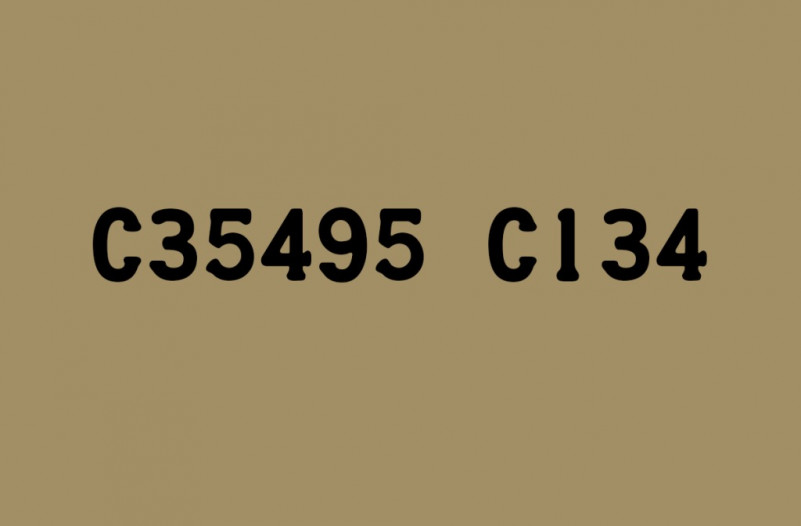
Credit Card Font
Credit Card Font is a serif typeface font designed and published by K-Type. It has 274 number of characters with one weight that is regular. K-Type foundry created this font in 2009. You can not find any lowercase in this font.